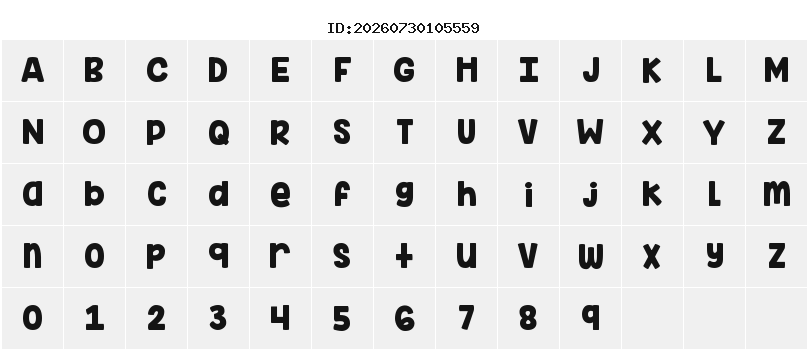
KG Inimitable Original Preview
• Font Name: KG Inimitable Original
• Designer: Kimberly Geswein
About KG Inimitable Original.ttf
KG Inimitable Original.ttf is a modern, elegant sans-serif font designed for ultimate readability and visual harmony. Perfect for branding, headlines, web design, and print materials.